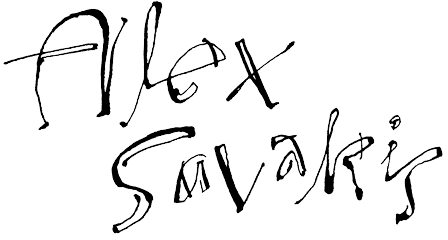
Designer of expressive hand lettering and custom typography
After earning a degree in art history from the Ohio State University in Columbus, Ohio, I returned to my hometown of Warren, Ohio. I designed and lettered signs for my parents’ ice cream shop. I based my hand lettering on typefaces from a Letraset catalog.
In 1991 I moved to California where I trained and worked in commercial sign shops. I learned to cut, prepare, and install vinyl letters. Later, I managed a sign shop in San Francisco, where I made signs, banners, and cut vinyl graphics for windows.
In 1997 my partner and I moved to Ohio. I know, why? We could buy a house and live like kings. Anyway, I earned another degree — in graphic design from the University of Akron in Akron, Ohio. I was hired as a full-time production designer at American Greetings, a greeting card company in Cleveland. A mentor helped him develop my lettering skills. I transitioned to the lettering design team. I created a signature lettering style that was developed into a typeface.
In 2007 we returned to California because my partner accepted a job promo (I love seeing the U.S. by car). I freelanced as a lettering artist for American Greetings and other greeting card companies. In 2012, I started a blog called LetteringGuy where I developed my lettering style and posted interviews of lettering artists.
Today, as Lettering Guy, I continue to practice lettering in my unique way.
Lettering designs for greeting cards
How did you become a lettering artist?
My interest in lettering comes from seeing and observing the work of sign painters. For a few years I ran a sign shop in the San Francisco Mart which became the HQ of Twitter then X. I cut and installed vinyl letters and window graphics. I joined a lettering team at a greeting card company where I learned to hand letter with brushes and pens. Later I was a freelance lettering artist for a variety of greeting card companies. My advice for you is to practice. Research work of prominent lettering artists. Be persistent in your practice but be kind to yourself.
What would be your dream project or job?
To create lettering and illustrations for a book of motivational quotes.
What are my favorite letters to draw?
I like drawing capital B, D, and S. Their proportions can be exaggerated and decorated with flourishes.
What are my favorite tools for hand lettering?
My favorite tools are use pointed pens and ink, monoline pens and Apple Pencil.
What is my favorite quote?
One of my favorite quotes is “Freedom lies in being bold” attributed to Robert Frost.